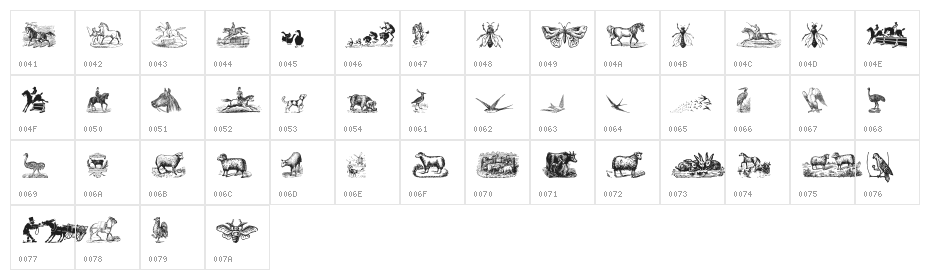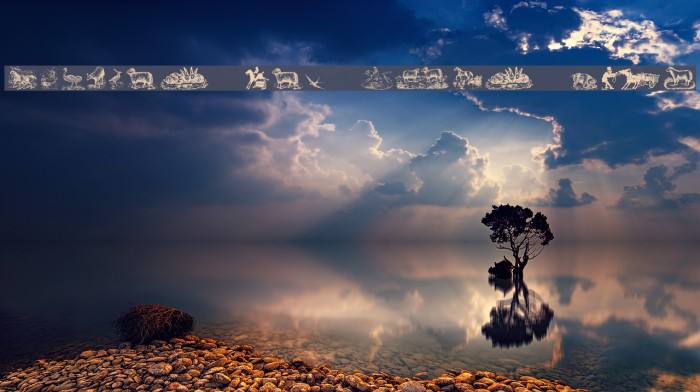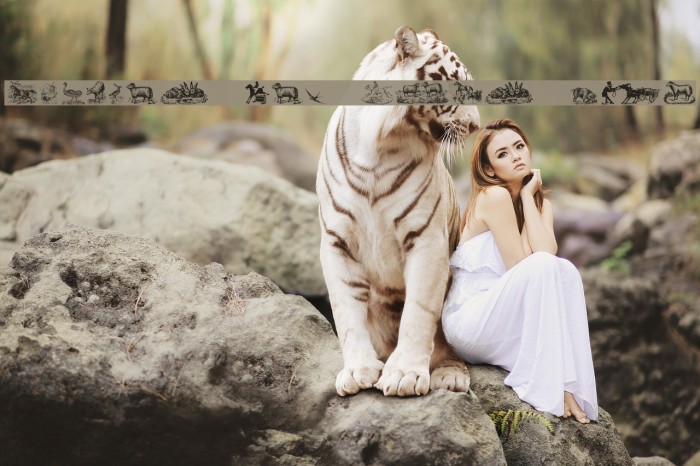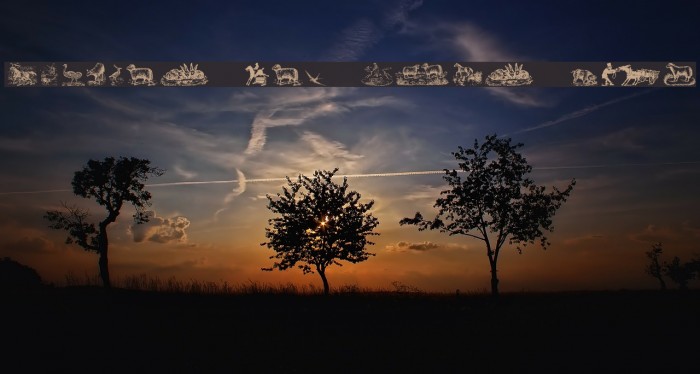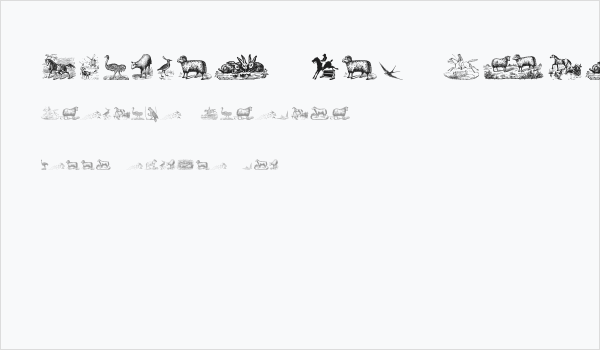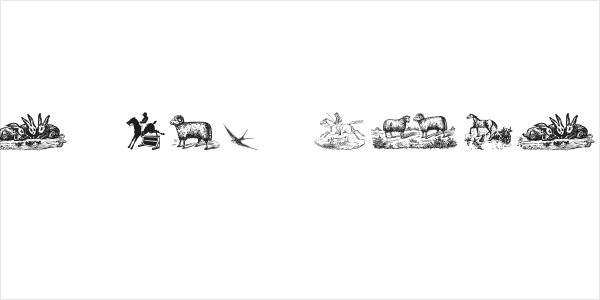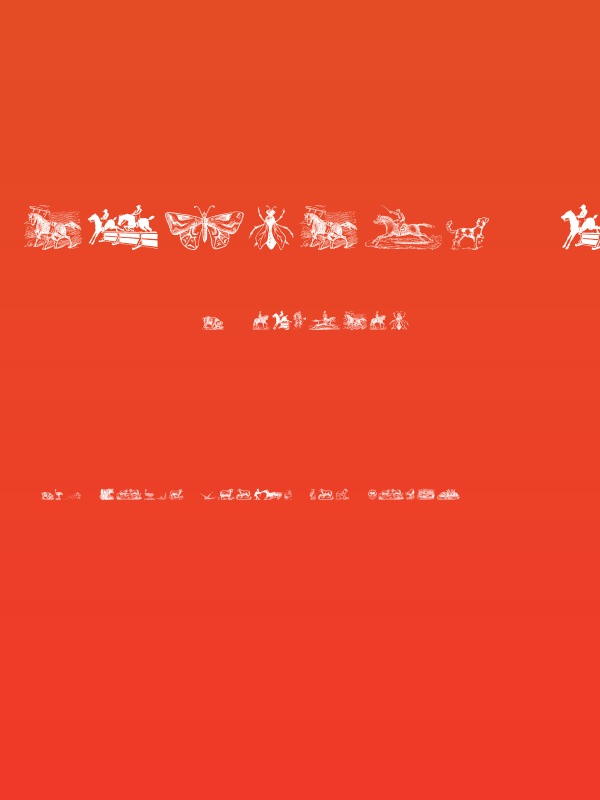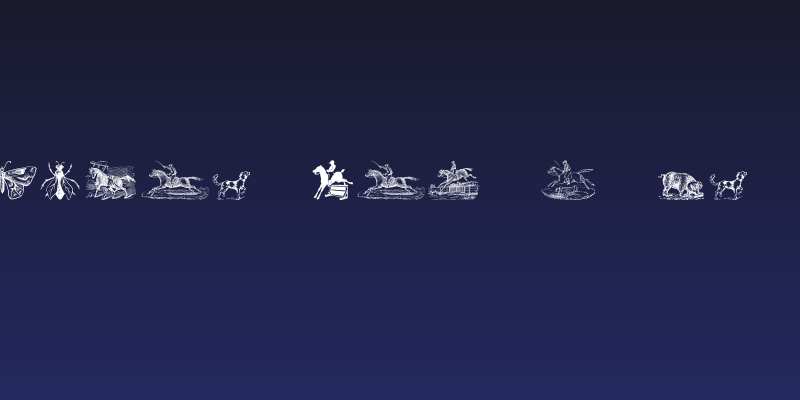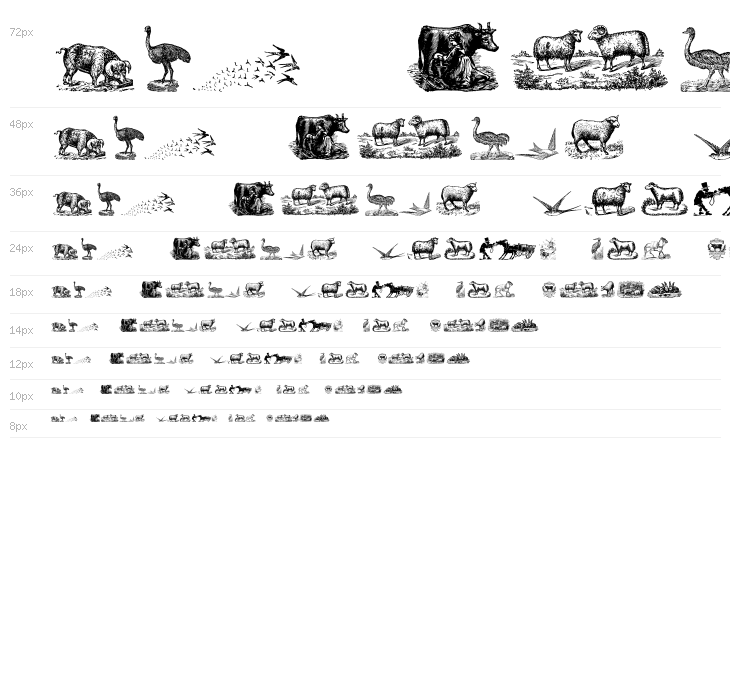
Animals Old Cuts Two Font
Animals Old Cuts Two Description
A collection of highly detailed, vintage-style animal and nature illustrations, each glyph representing a different animal or pastoral scene with intricate linework reminiscent of old woodcuts or engravings.
| Overall Style | Vintage, Ornate, Decorative |
| Use Case | Logos, Decorative elements, Illustrative accents, Themed invitations |
| Proposed Projects | Book covers, vintage posters, packaging, branding for organic or artisanal products, educational materials, decorative borders. |